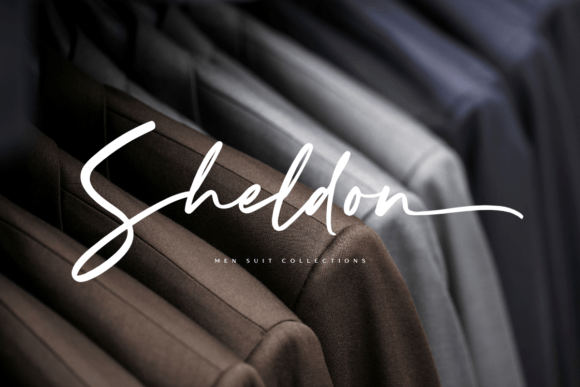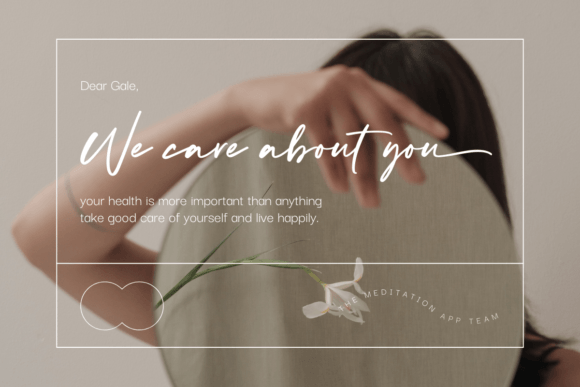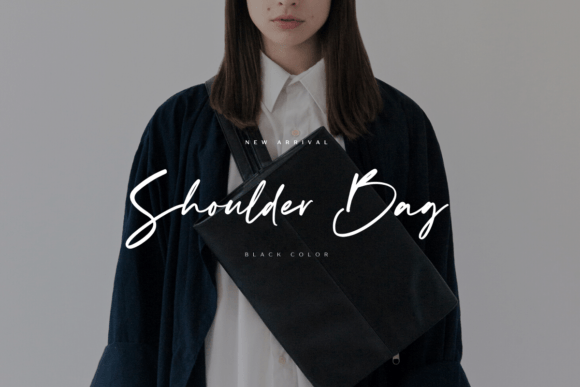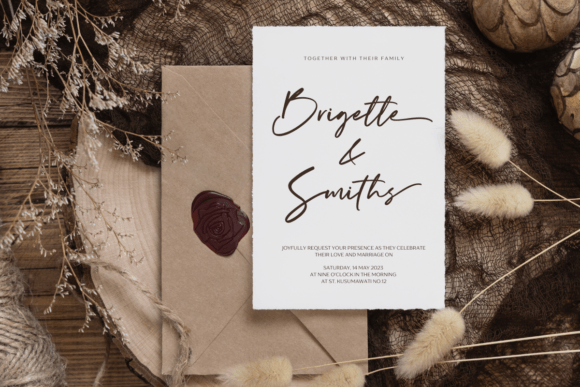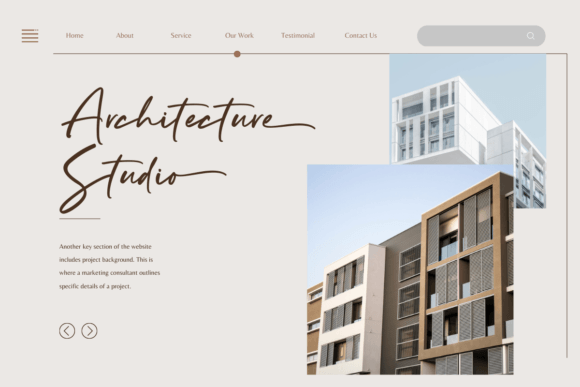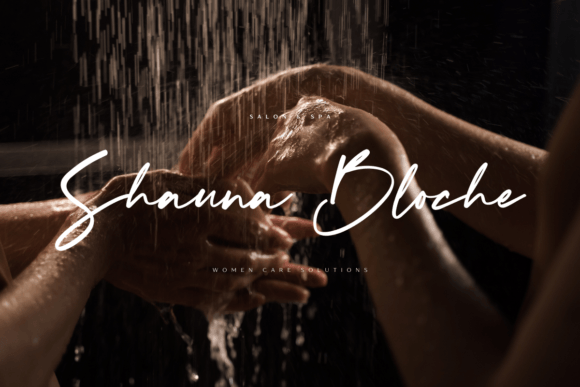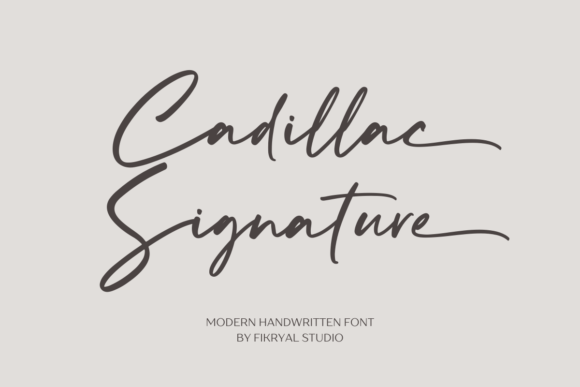
The Enchanting Cadillac Signature Font: A Designer’s Dream
I’ll never forget the time I was working on a romantic getaway brochure for a client, and I just couldn’t find the right font to capture the essence of the luxurious resort. The project required a font that exuded elegance, sophistication, and a touch of whimsy. That’s when I stumbled upon the Cadillac Signature font, and it was love at first sight! 💕
This enchanting handwritten font has since become a staple in my design toolkit, and I’m excited to share its magic with you. In this article, we’ll dive into the world of Cadillac Signature, exploring its features, uses, and some practical tips on how to make the most of this versatile script font.
- 💫 Romantic and elegant feel, perfect for projects that require a touch of sophistication
- ✅ Highly versatile, suitable for a wide range of applications, from greeting cards to headlines
- 🔥 PUA encoded, making it easy to access all glyphs and ligatures
- 👍 Beautifully crafted, with a unique and distinctive character
- ⚠️ May not be suitable for very small font sizes, as some details may get lost
- ⚠️ Limited availability of certain characters, such as Cyrillic or non-English language support
The Story Behind Cadillac Signature: Designer Inspiration
While the exact story behind Cadillac Signature remains a mystery, it’s clear that the designer was inspired by the world of luxury and romance. The font’s elegant lines, flowing curves, and intricate details evoke the feeling of a bygone era, when life was a little more sophisticated and a lot more charming.
A: PUA (Private Use Area) encoding allows designers to access a wide range of glyphs and ligatures, making it easier to create unique and customized text elements.
Q: Is Cadillac Signature suitable for body text or long-form content?
A: While Cadillac Signature is a beautiful font, it’s best suited for headlines, titles, or short-form content. For body text or long-form content, you may want to consider a more legible font.